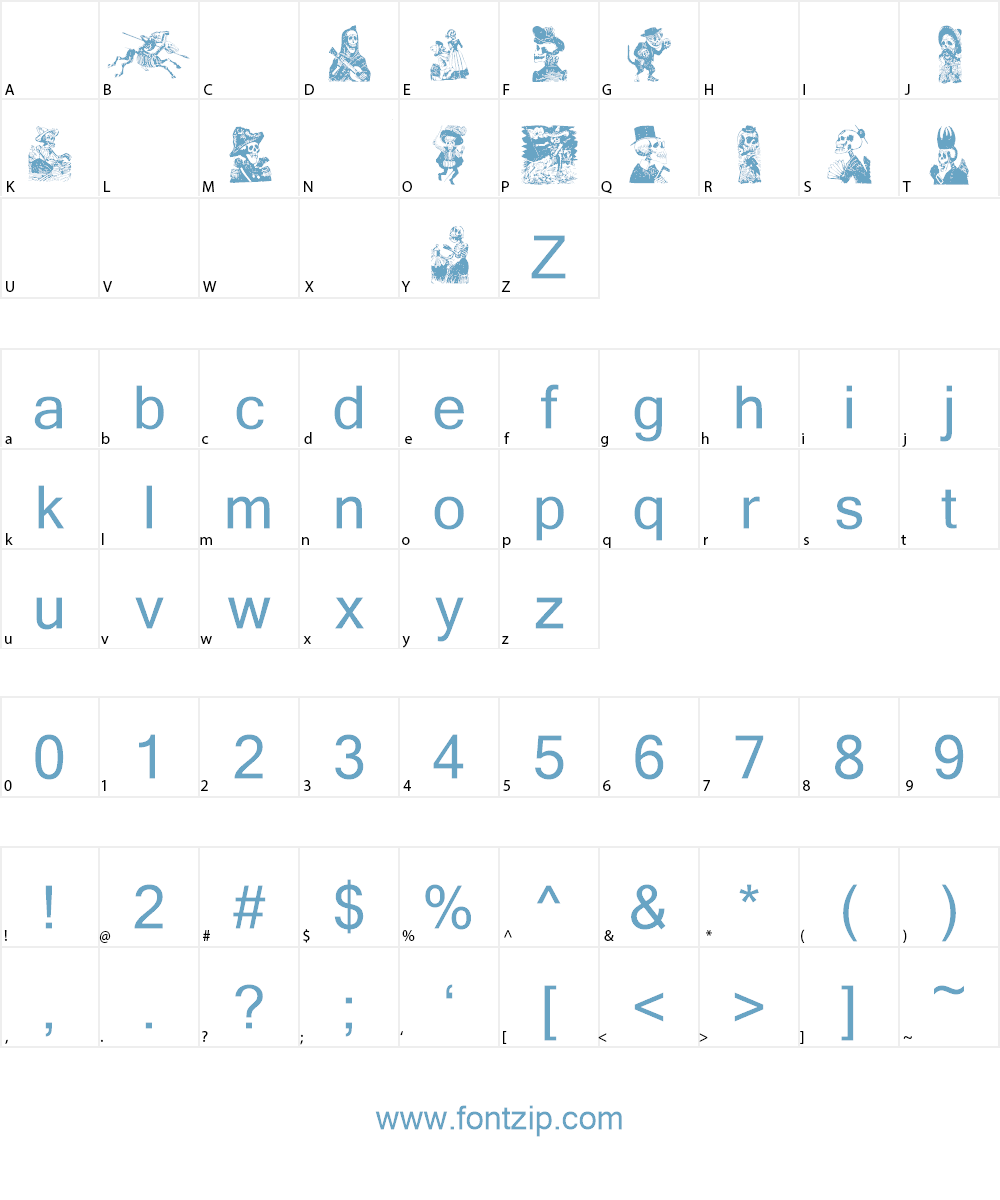
This font is based on the 'calaveras' (skulls, skeletons)
depicted in the art of Jose Posada (1852-1913, Mexico)
which has become associated with Dia de los Muertos
or Day of the Dead